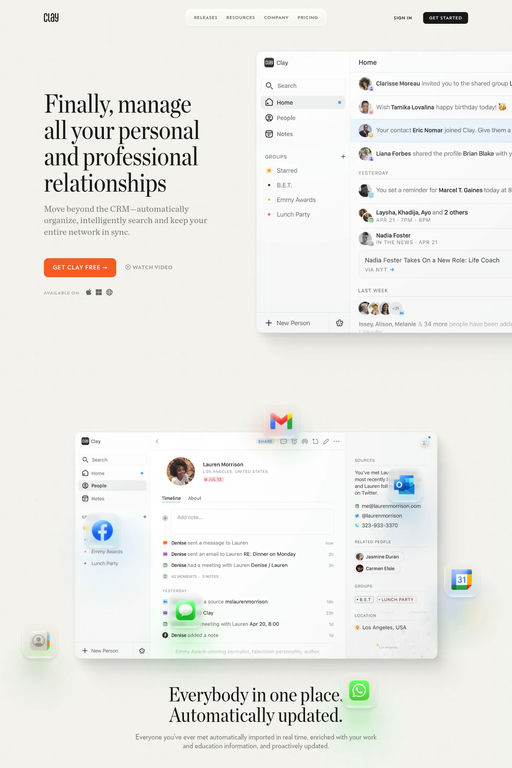
Verlag is a sans-serif typeface from Hoefler & Co..
Verlag — From out of the six typefaces originally created for the Guggenheim Museum comes Verlag, a family of 30 sans serifs that brings a welcome eloquence to the can-do sensibility of pre-war Modernism.